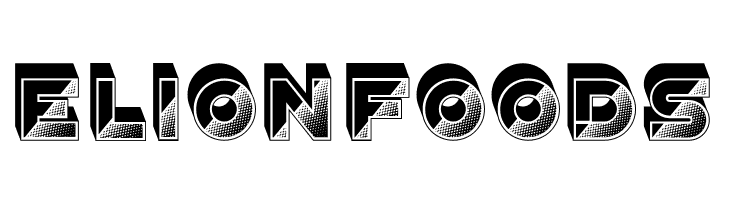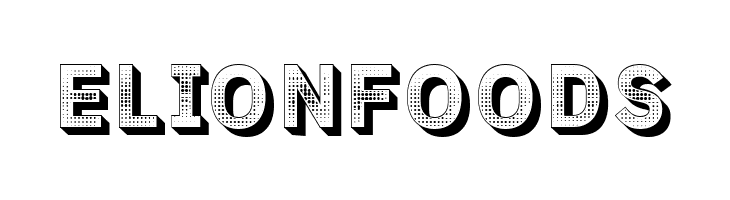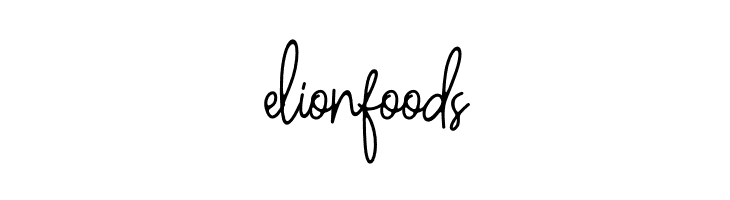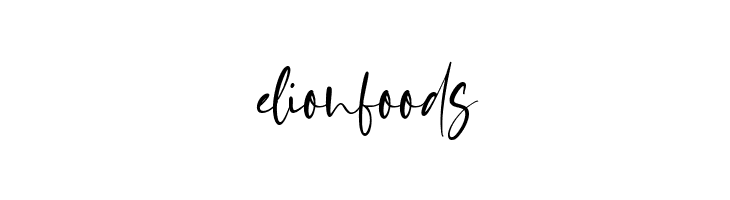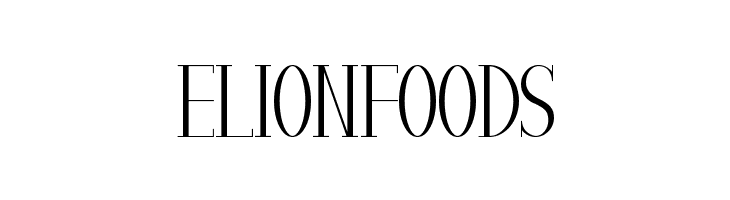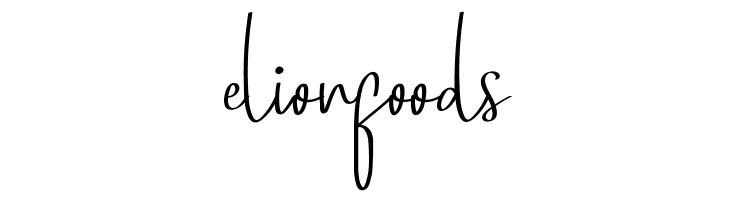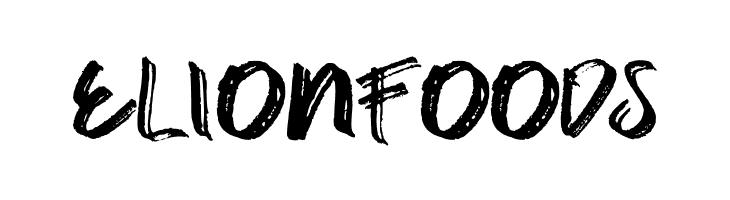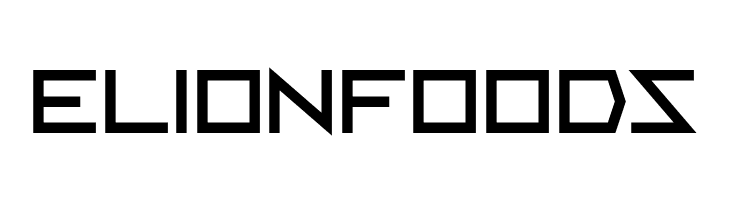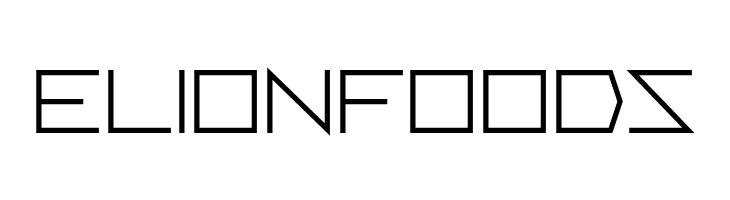
A bold, 3D geometric font with a dotted texture and shadow effect.
A bold, 3D font with a dotted texture and shadow effect.
A playful, handwritten font with a casual and flowing style.
A lively, handwritten font with fluid strokes and a playful, modern style.
A bold, distressed font with a textured, vintage appearance.
An elegant, high-contrast font with tall, narrow letterforms.
A whimsical and elegant script font with flowing lines and playful curves.
A bold, brush-style font with expressive, hand-painted strokes.
A bold, geometric font with a futuristic and edgy design.
A geometric, angular font with a futuristic and technical style.